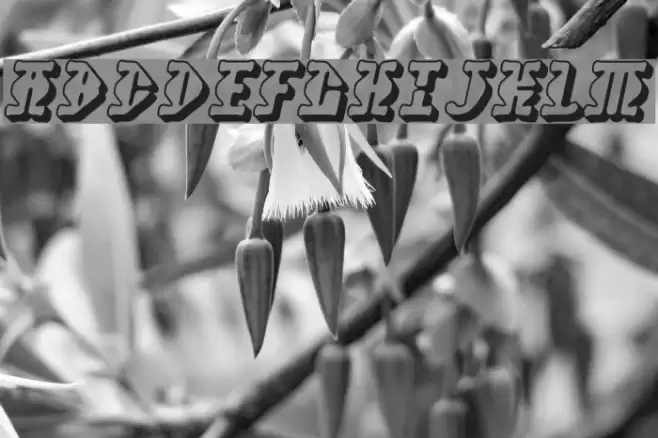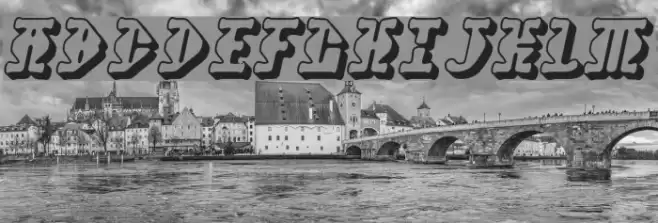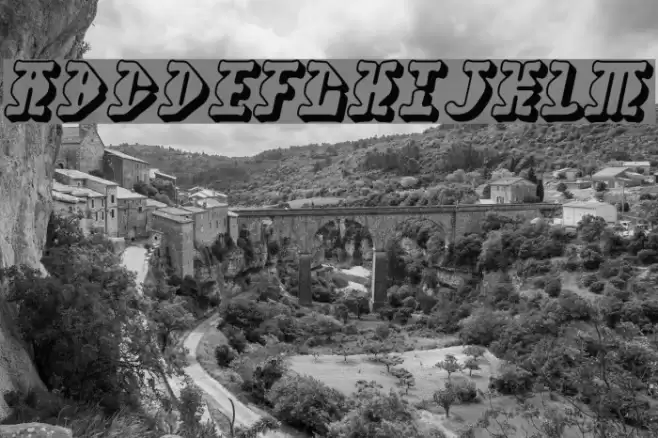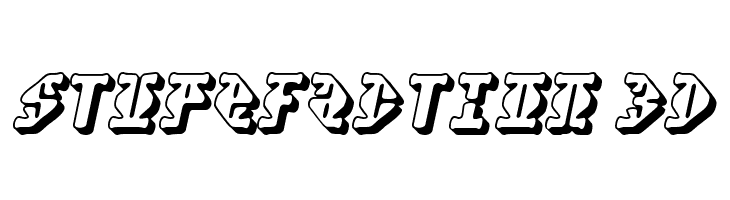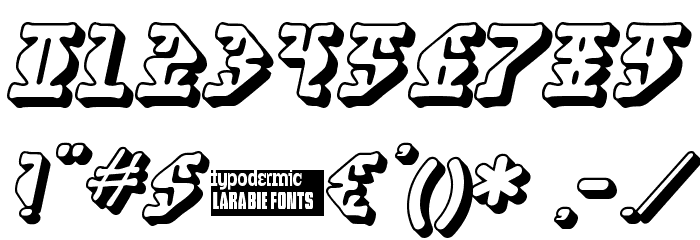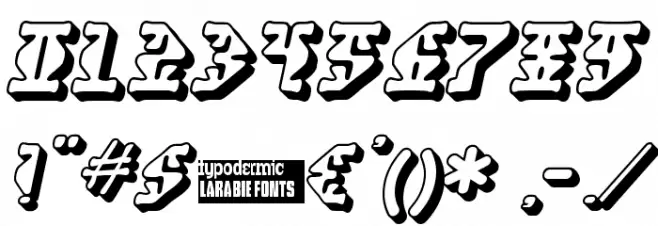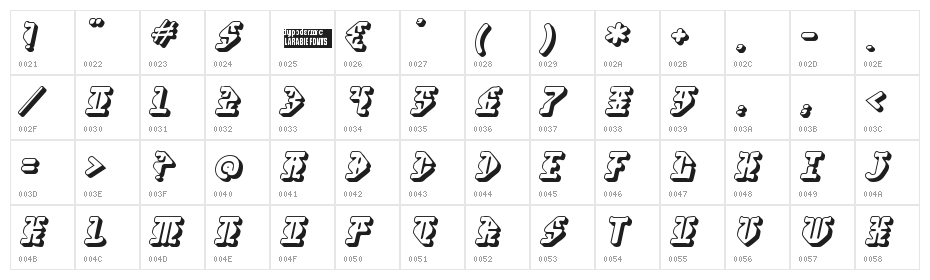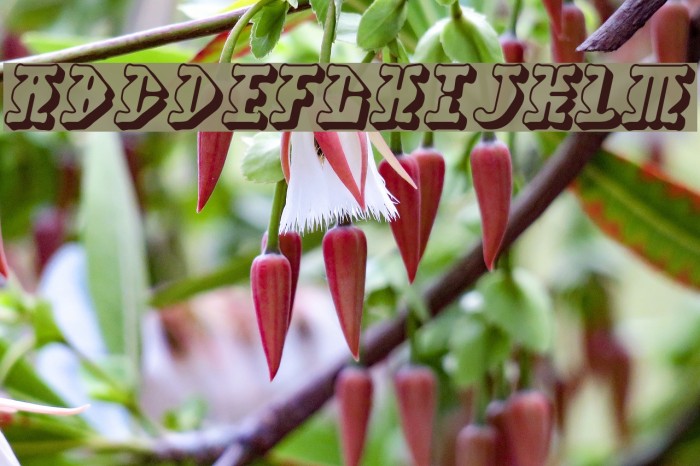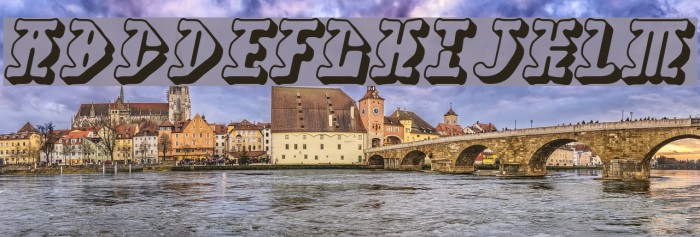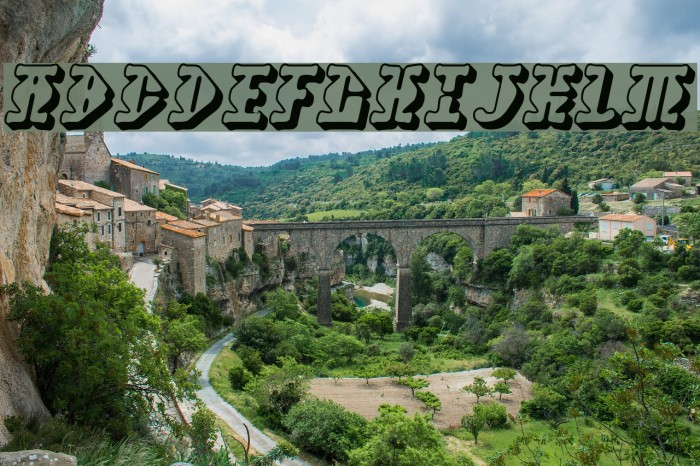
Stupefaction 3D Font
Stupefaction 3D Description
This font features a bold, three-dimensional design with a strong shadow effect, giving it a striking and impactful appearance. The characters are blocky and geometric, with sharp angles and a consistent thickness throughout. The 3D effect is achieved through a clever use of shading, which adds depth and dimension to each letter. This style is reminiscent of graffiti or street art, making it ideal for projects that require a bold and edgy look. The font includes a full set of uppercase and lowercase letters, numbers, and a variety of special characters, ensuring versatility in its application.
A bold, 3D font with a graffiti-inspired, geometric style from Crazy fonts.
- Proposed Projects: Ideal for posters, album covers, video game graphics, and urban-themed branding.